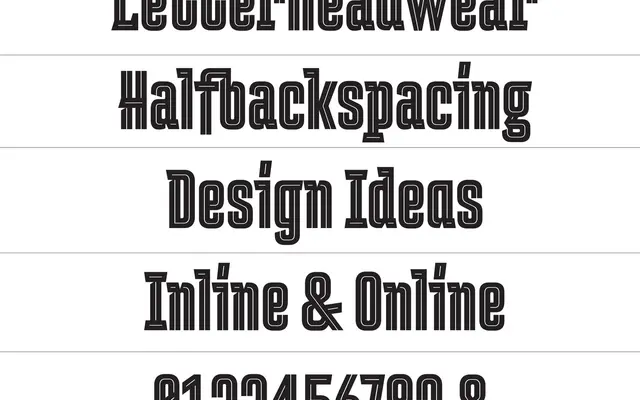
A bold inline display face built from a headwear embroidery project, expanded into three layered styles for chromatic type and headline work.
Originally drawn for a limited edition embroidered cap, Ditch was designed with letterforms that accommodate dimensional decoration and 3D lettering. The family ships in three styles, Inline, Core and Base, each corresponding to a different layer of the letterform so designers can build colour variations and depth without manual construction. Best suited to poster headlines, branding and editorial display where heavy weight and graphic punch are needed.
Ditch is a bold inline display typeface designed for large-scale headline and decorative use, with a layered structure (Inline, Core, Base) intended for chromatic and three-dimensional effects.